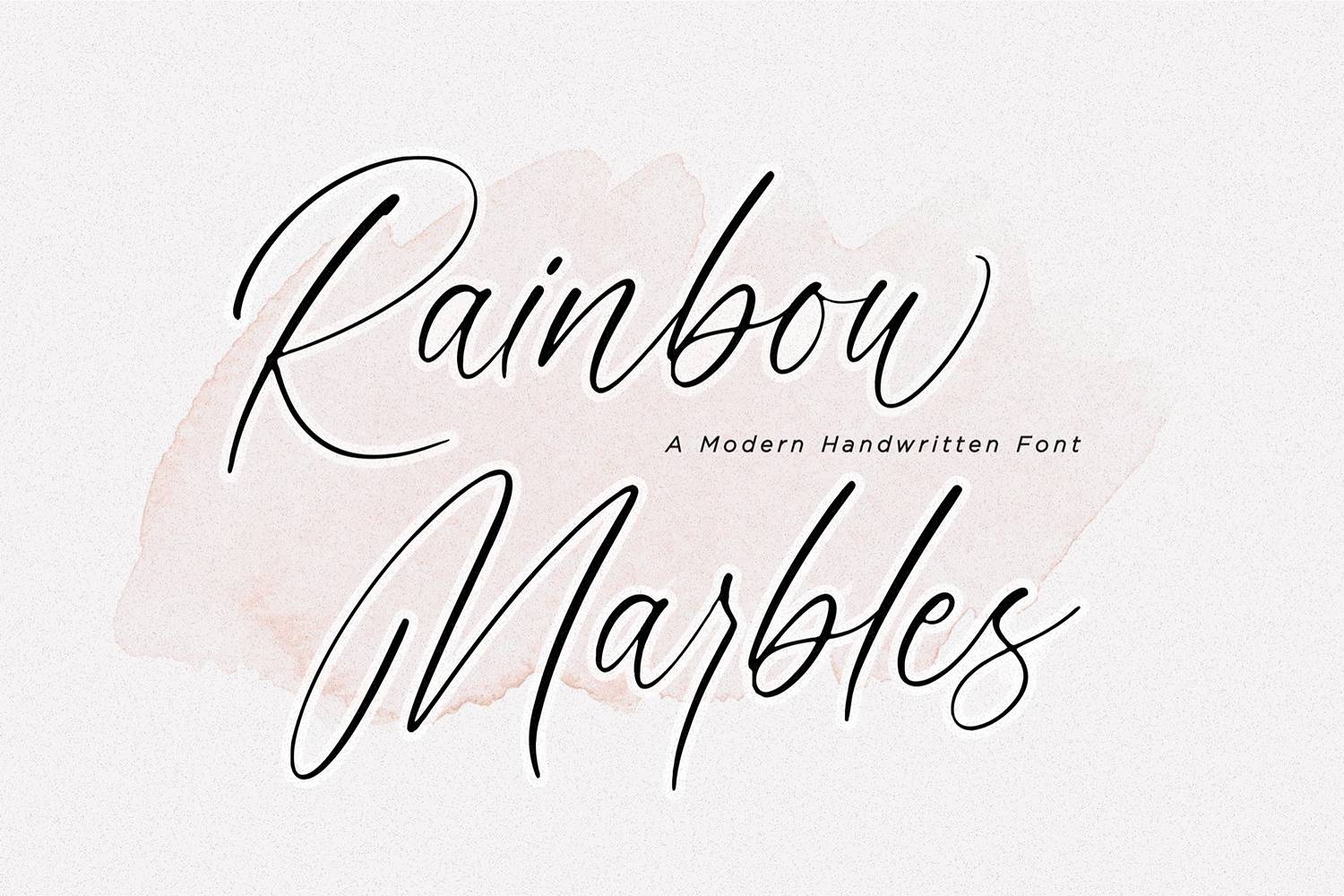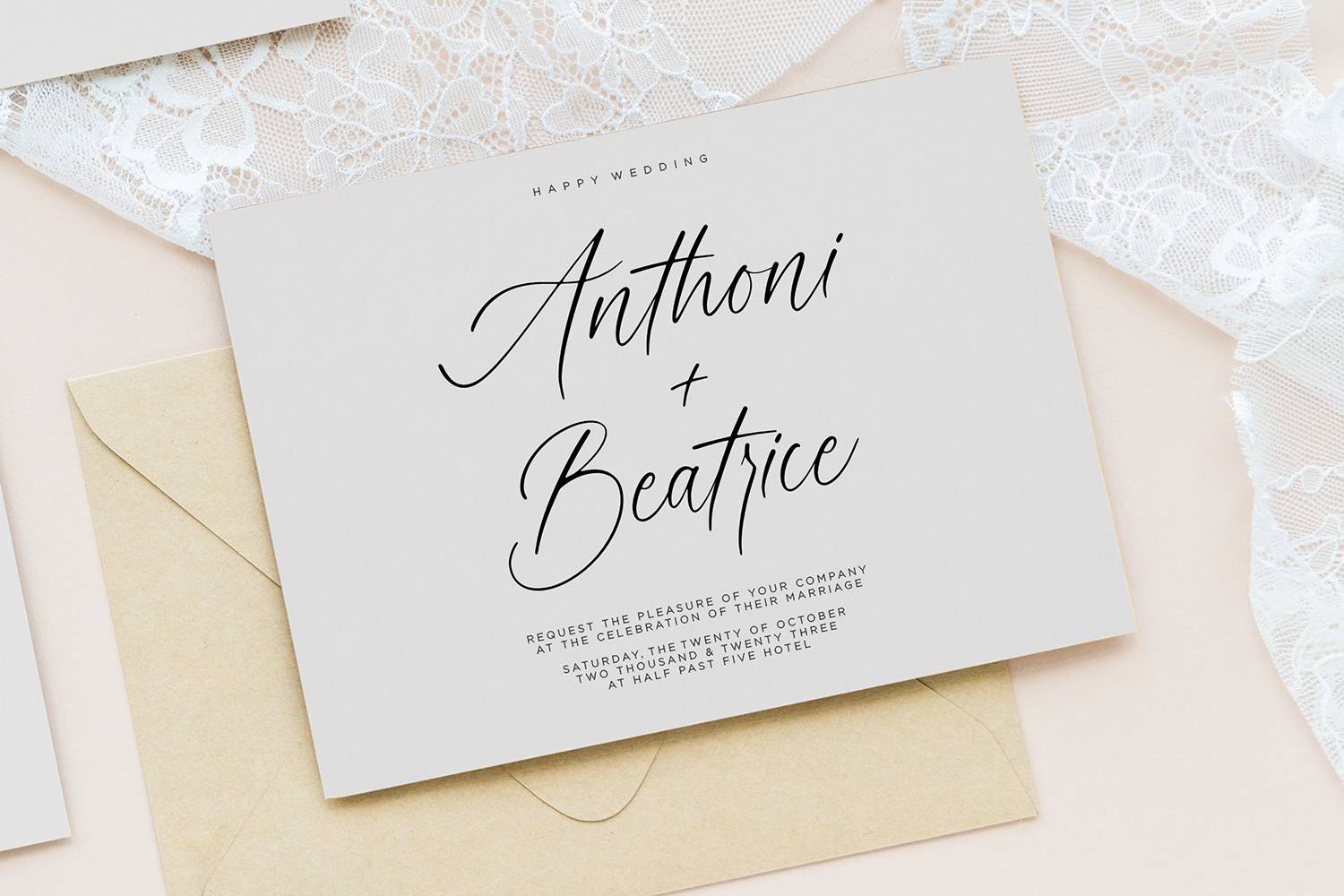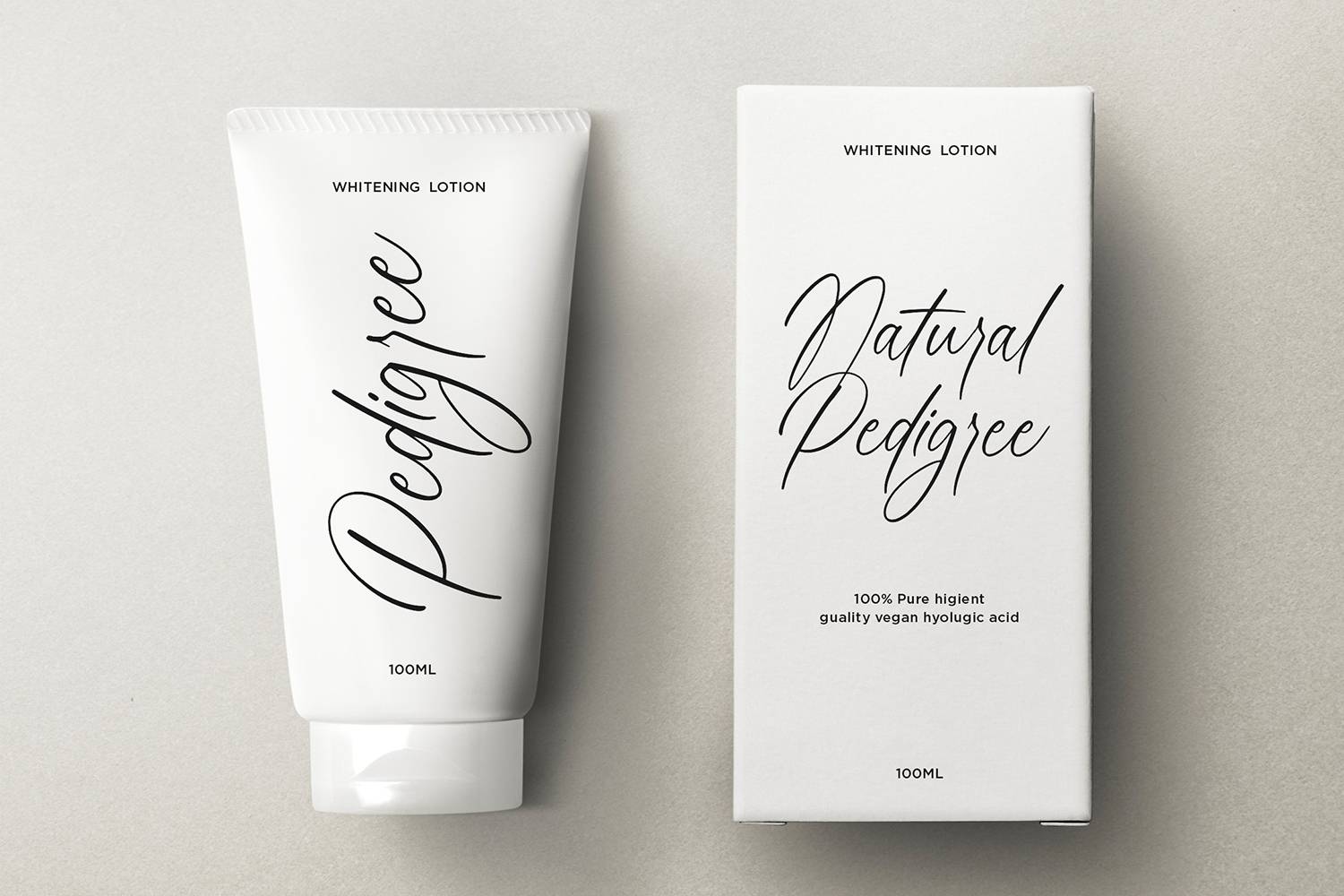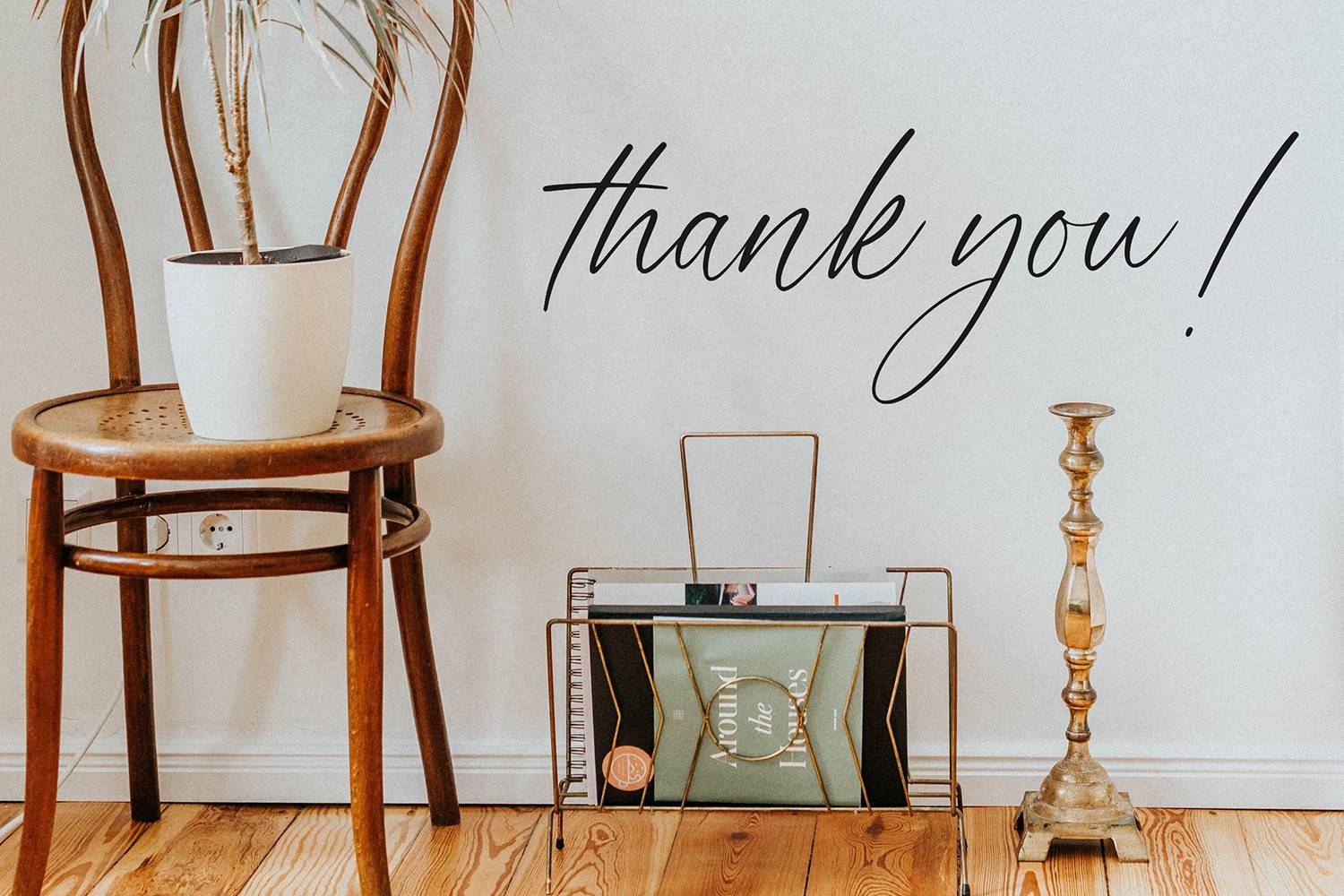
Rainbow Marbles is an elegant, delicate script font characterized by its thin, flowing strokes and refined, handwritten style. Its slender letterforms and graceful curves make it ideal for invitations, branding, and projects that seek a sophisticated and personal touch. This font works beautifully in designs where a light, airy, and stylish script is needed to convey elegance and charm.
Rainbow Marbles Font
About Rainbow Marbles Font